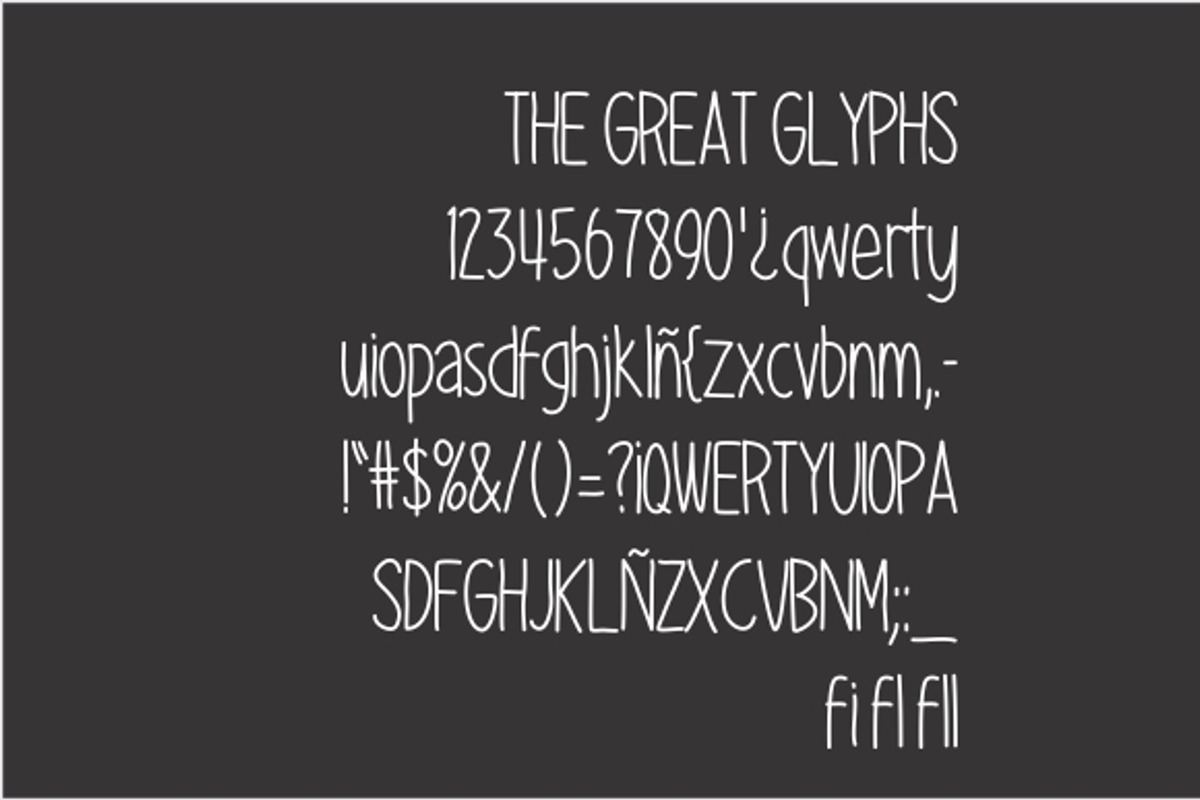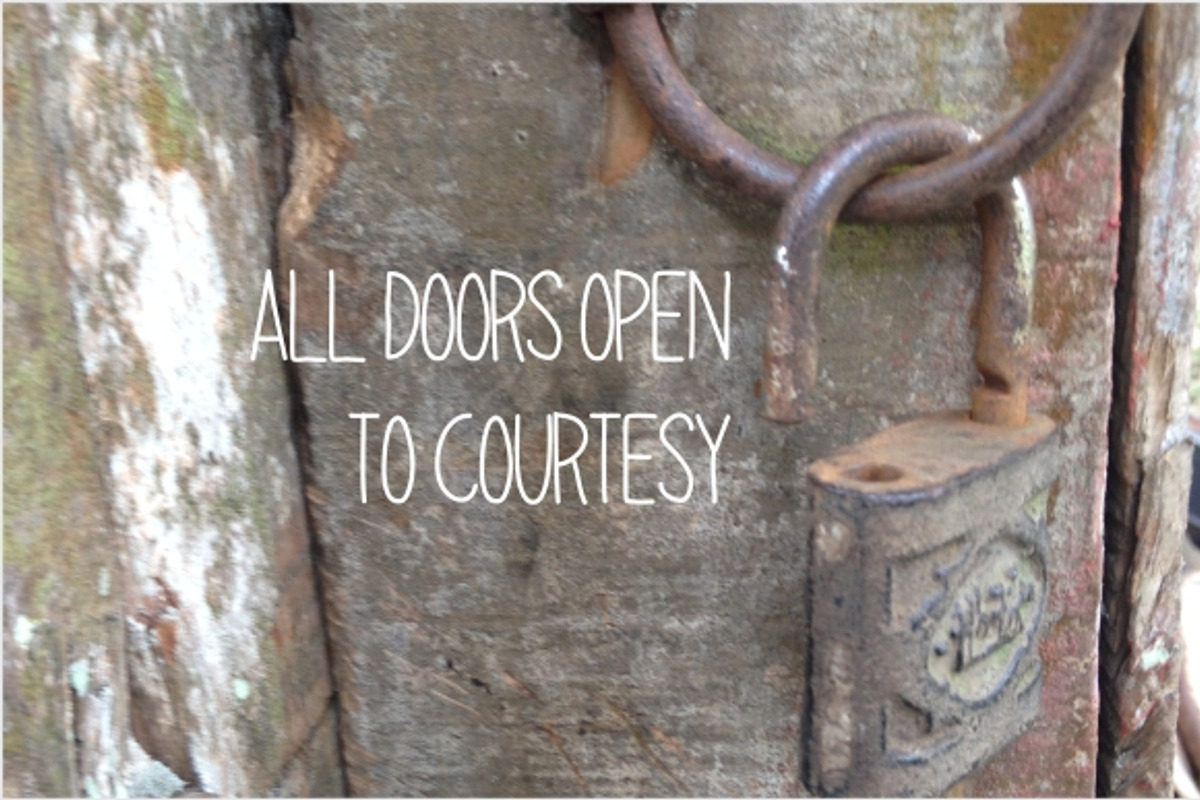
Great Font
Great Font by Fonts & Printables is a font selected for branding, posters, packaging, typography.
Why Great Font is worth a look
Great Font by Fonts & Printables fits naturally into Branding, posters, packaging, typography.